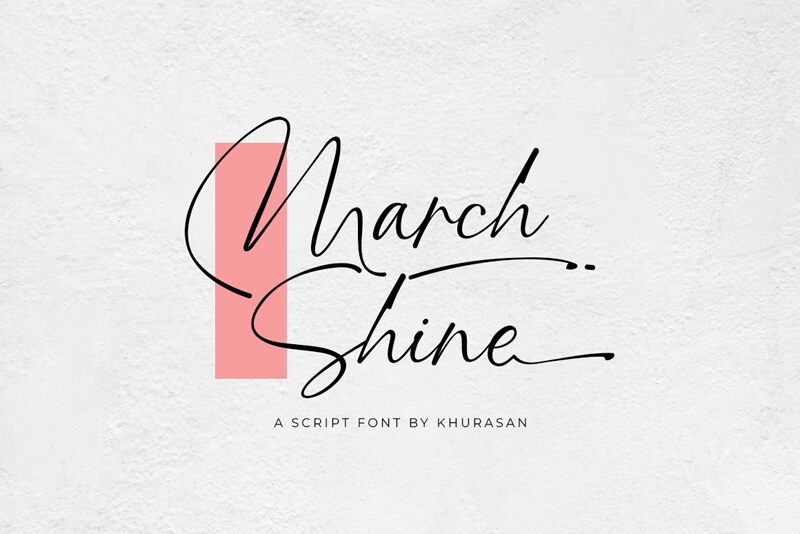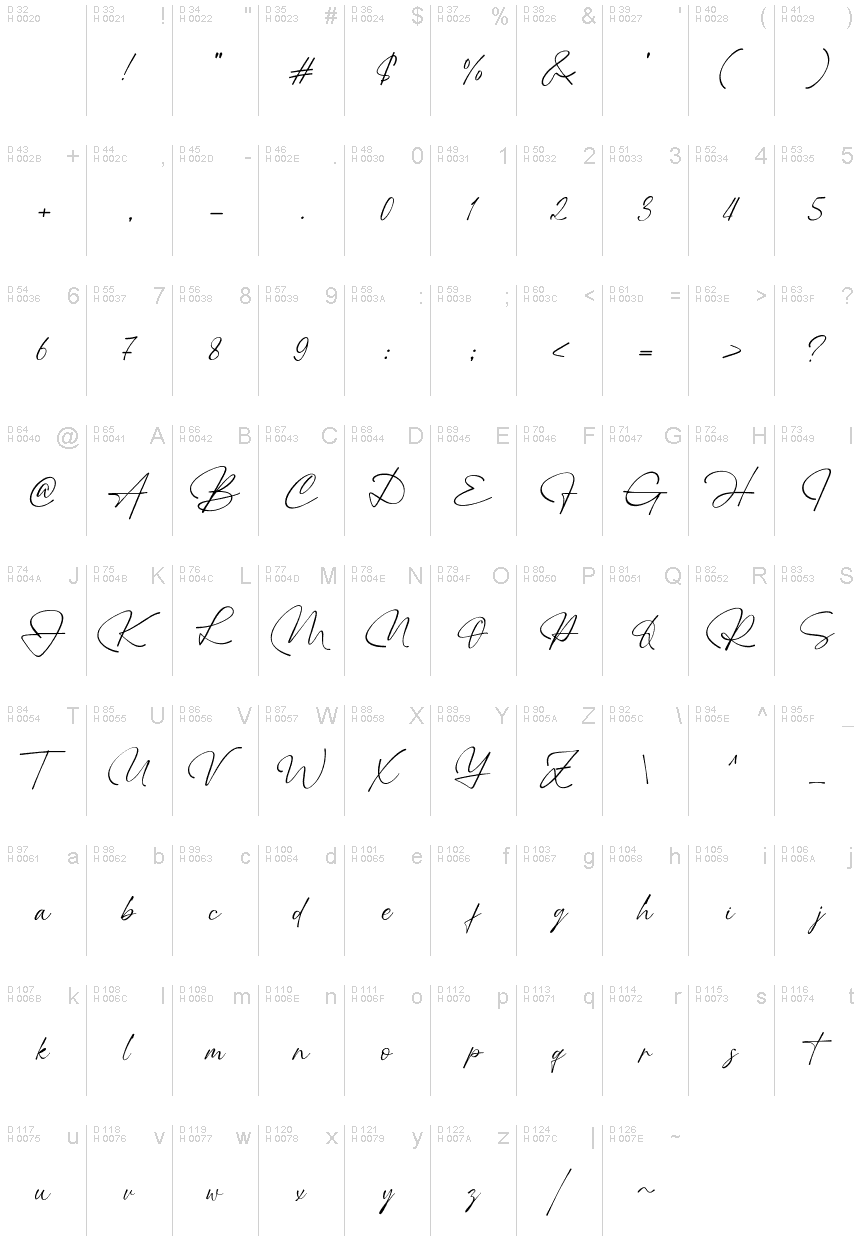
March Shine
March Shine is a beautiful handwritten font designed by Khurasan. It has a light weight and a unique style, making it perfect for creative projects such as branding, invitations, logos, and more. The font also pairs well with modern script fonts for a stylish and eye-catching look.